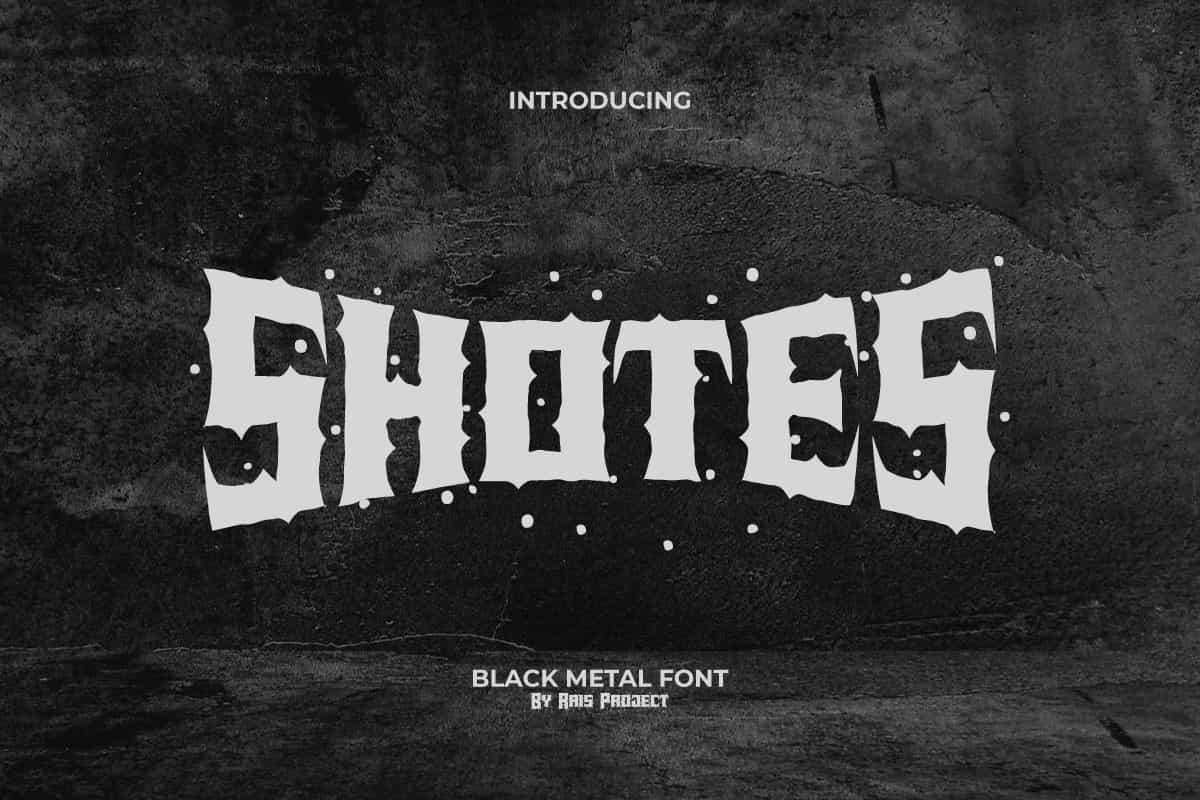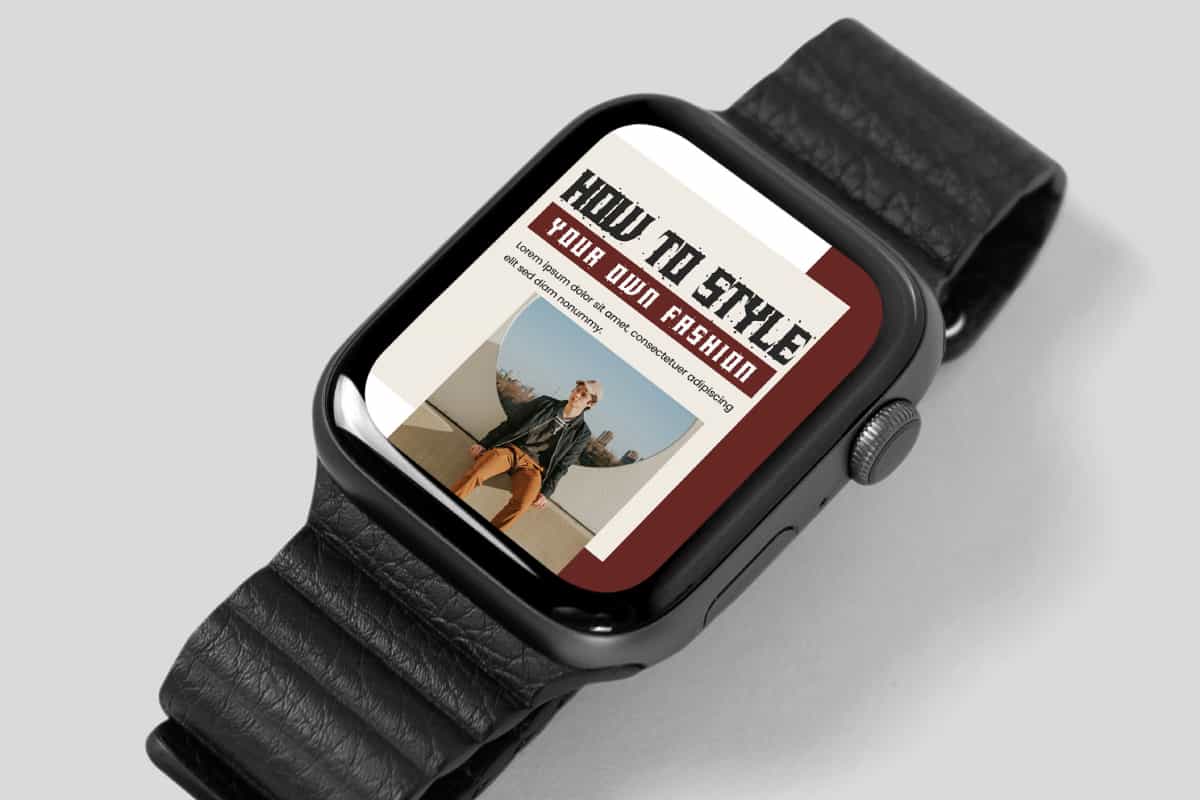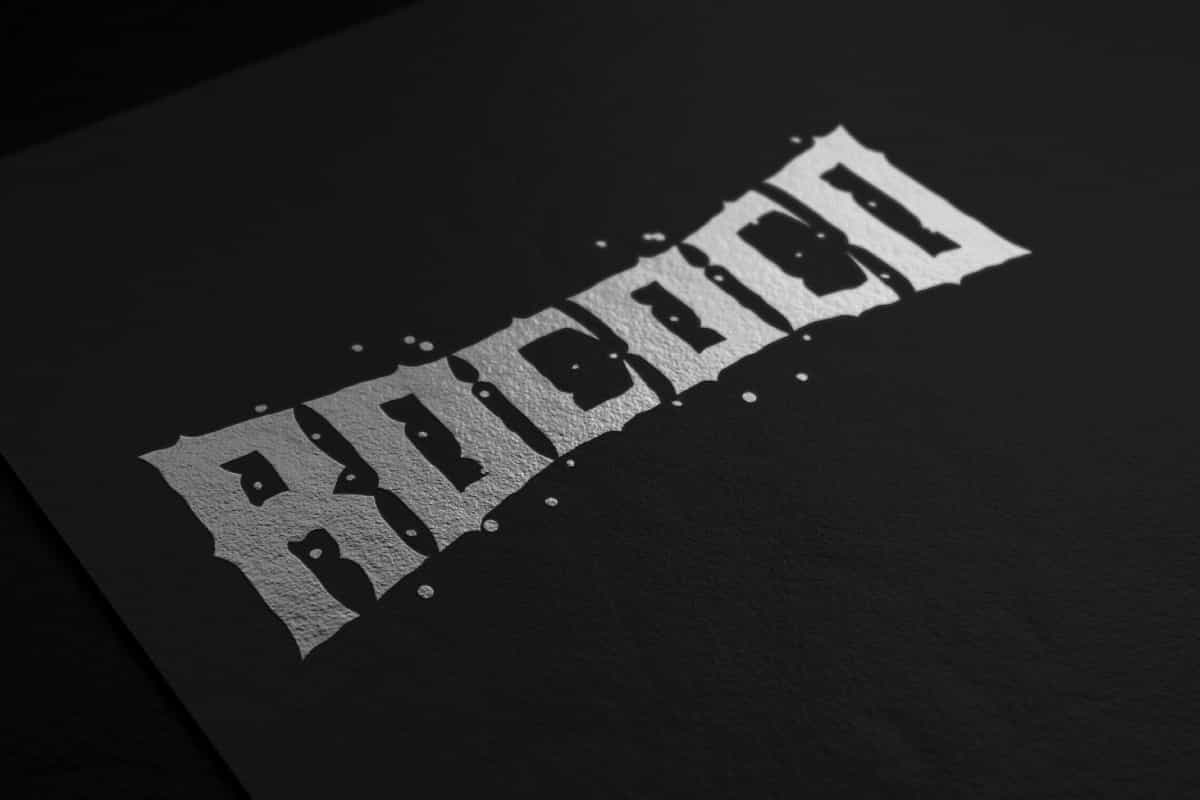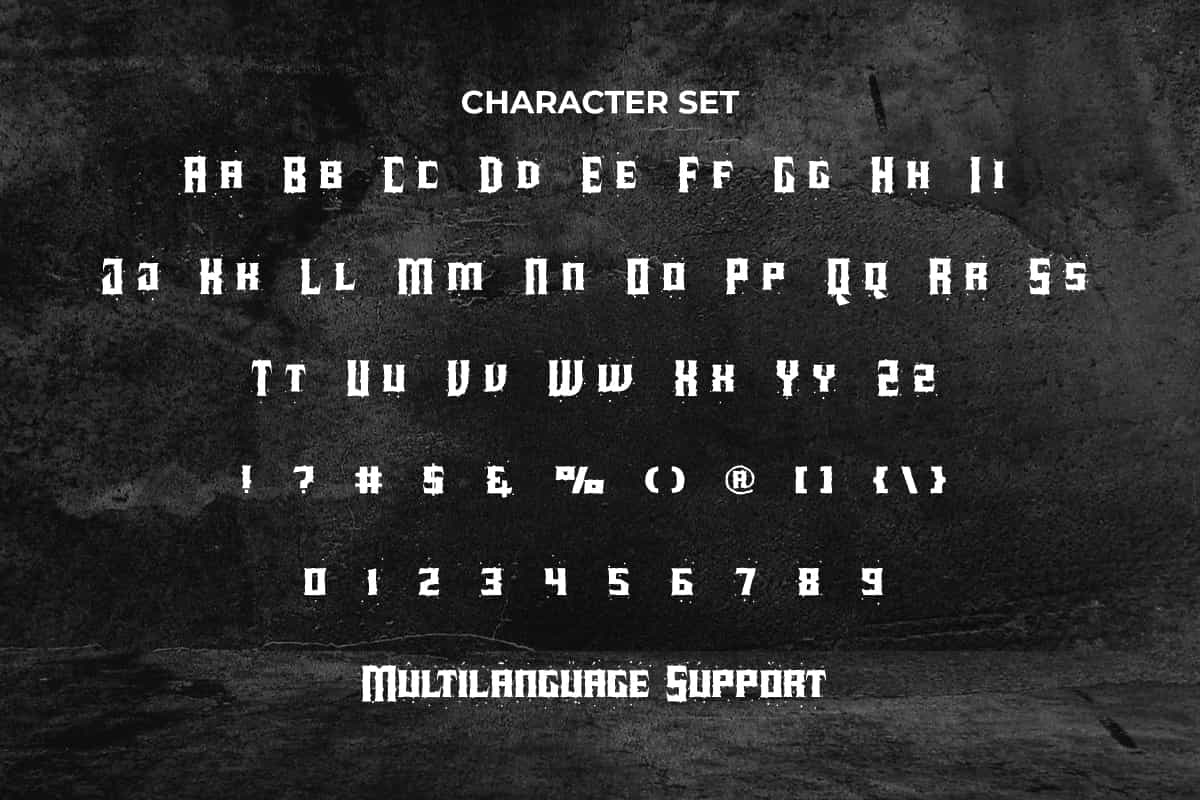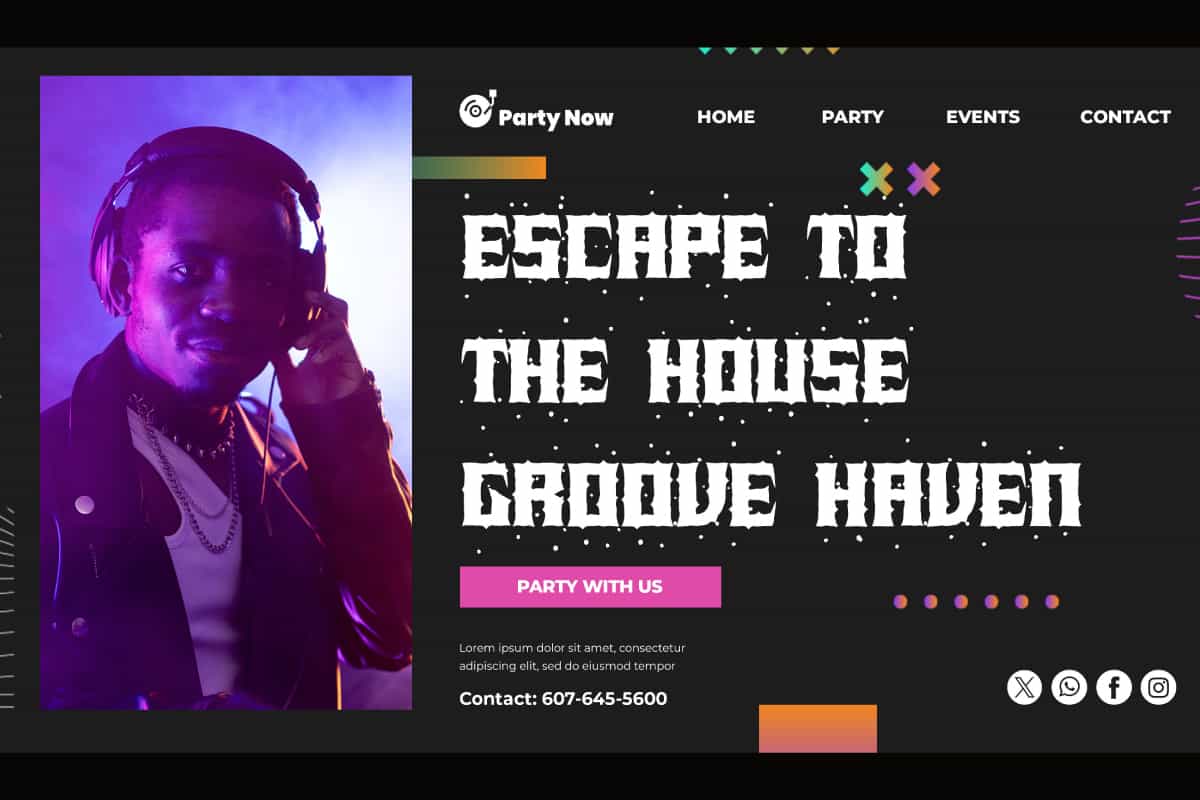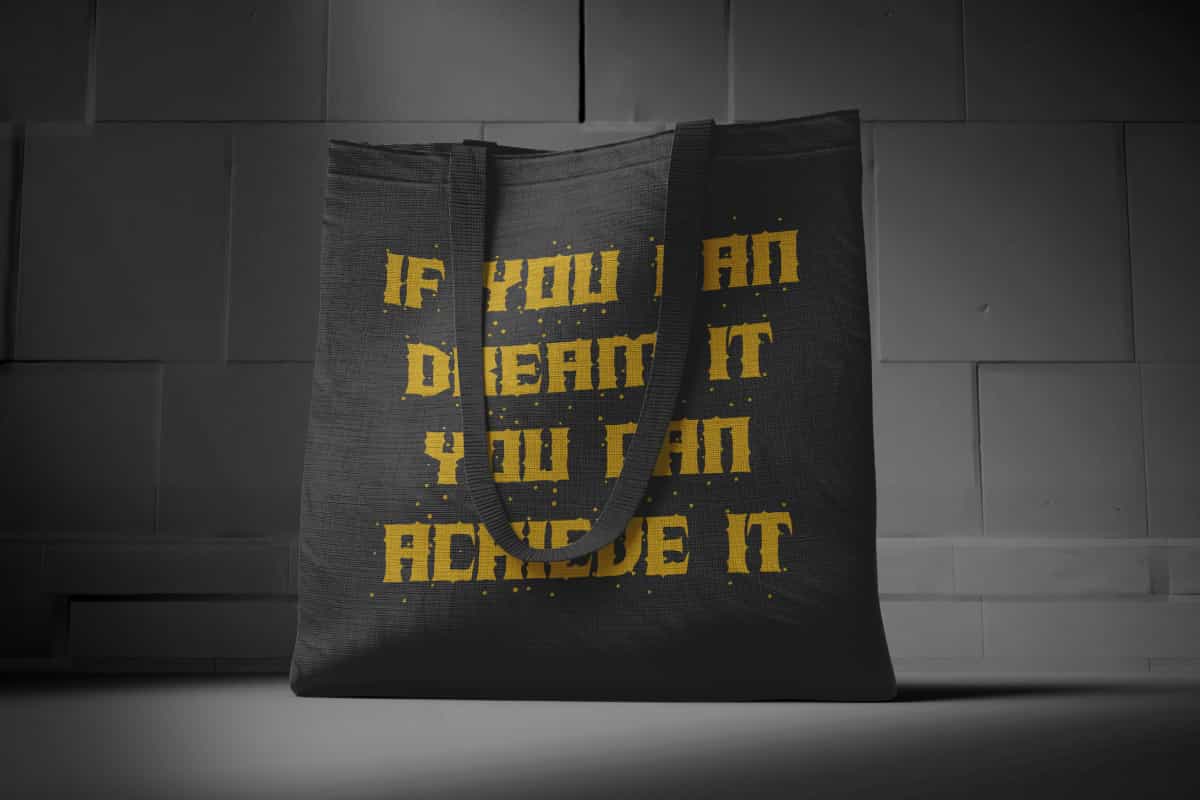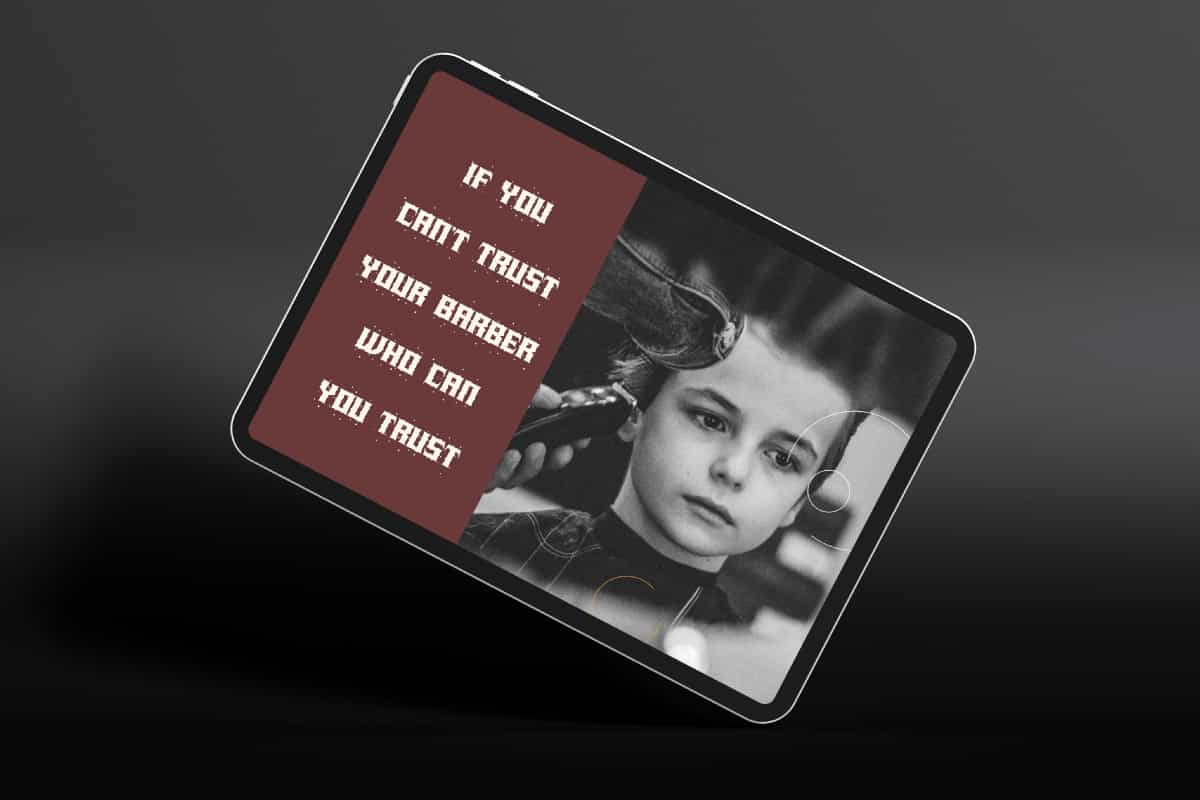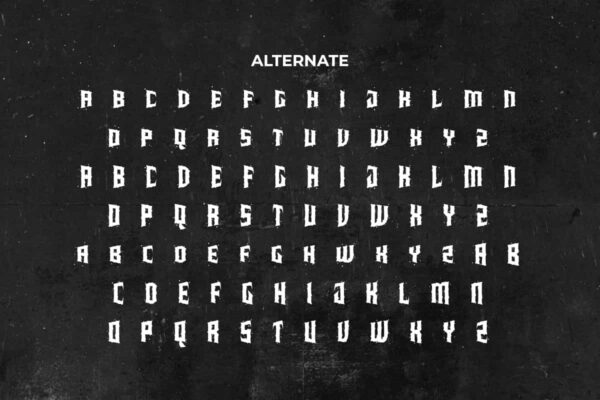
Shotes Font is a bold decorative display font with black metal style. Apart from the display bold characters, there are sharp parts on the letters which make them look dominant. It would be perfect for your design, such as custom design, label, fashion, invitation, menu, poster, stationery, website page, and more! You can see the demo font below, can input any word you want so you can see what it looks like: